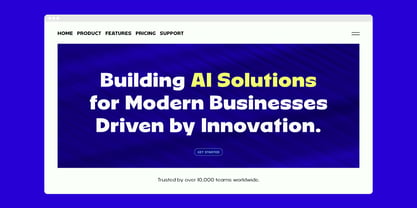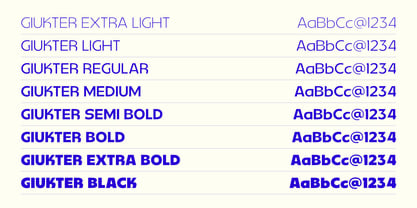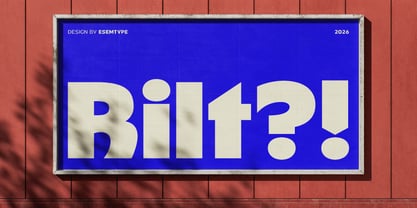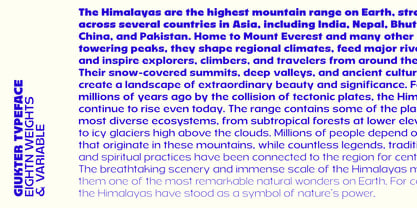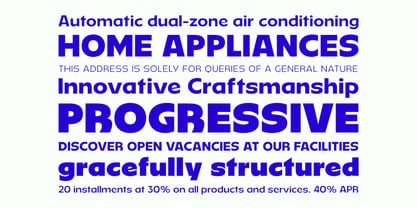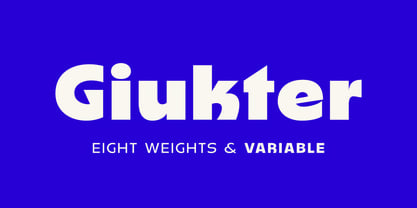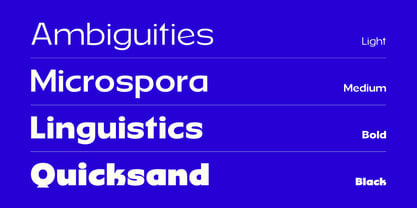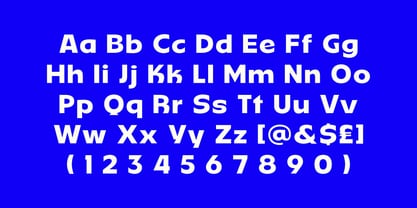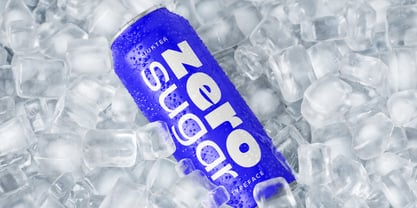
Giukter
The Giukter Font Family was designed by Szymon Mandziarz and published by ESEM Type. Giukter contains 8 styles and family package options. More about this family
Giukter is a modern geometric display typeface designed for bold headlines, striking branding, and contemporary digital experiences. Featuring strong letterforms, smooth curves, and excellent readability, it delivers a confident and professional look across a wide range of creative projects. Perfect for logos, posters, websites, user interfaces, packaging, advertising, social media graphics, and editorial design, Giukter combines futuristic aesthetics with clean geometric precision to create typography that stands out.
The family includes 8 carefully crafted weights: Extra Light, Light, Regular, Medium, Semi Bold, Bold, Extra Bold, and Black, along with a fully featured Variable Font version, giving designers complete flexibility for responsive typography, branding, and modern creative workflows.